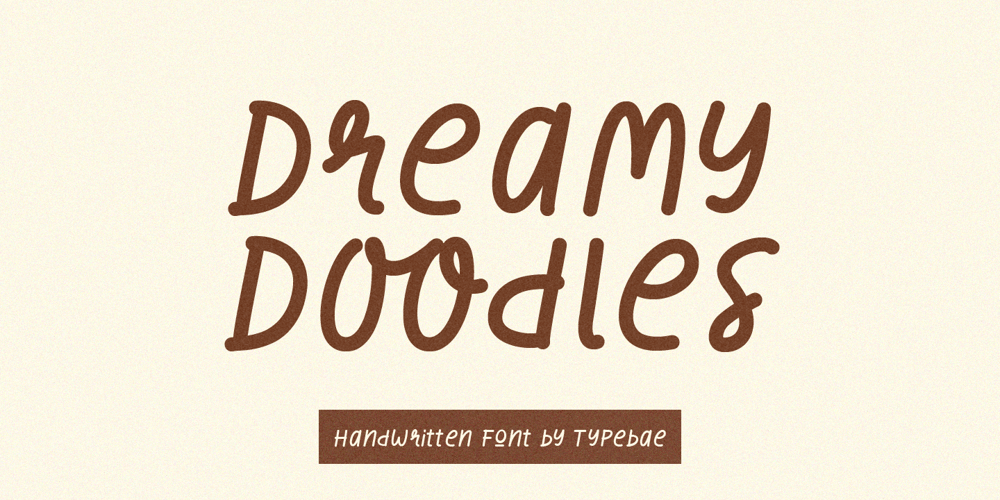
Dreamy Doodles Font Family was designed by Iqbal Pauji and published by Typebae. Dreamy Doodles contains 1 styles and family package options. Dreamy Doodles is a stylish and joyful that captures the essence of a modern handwritten marker. It exudes a delightful and lively vibe, perfect for those seeking a refreshing and vibrant aesthetic. This font effortlessly conveys a cool and fashionable impression, making it an excellent choice for those looking to create eye-catching and trendy designs.